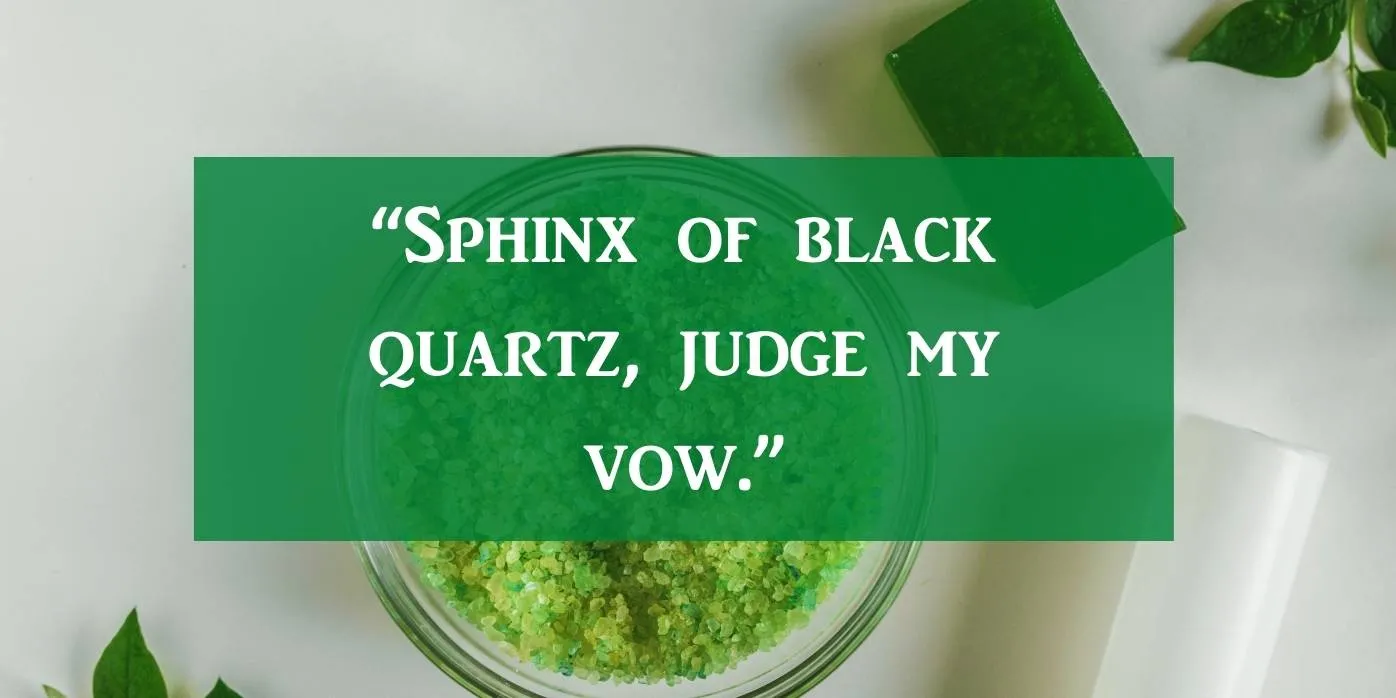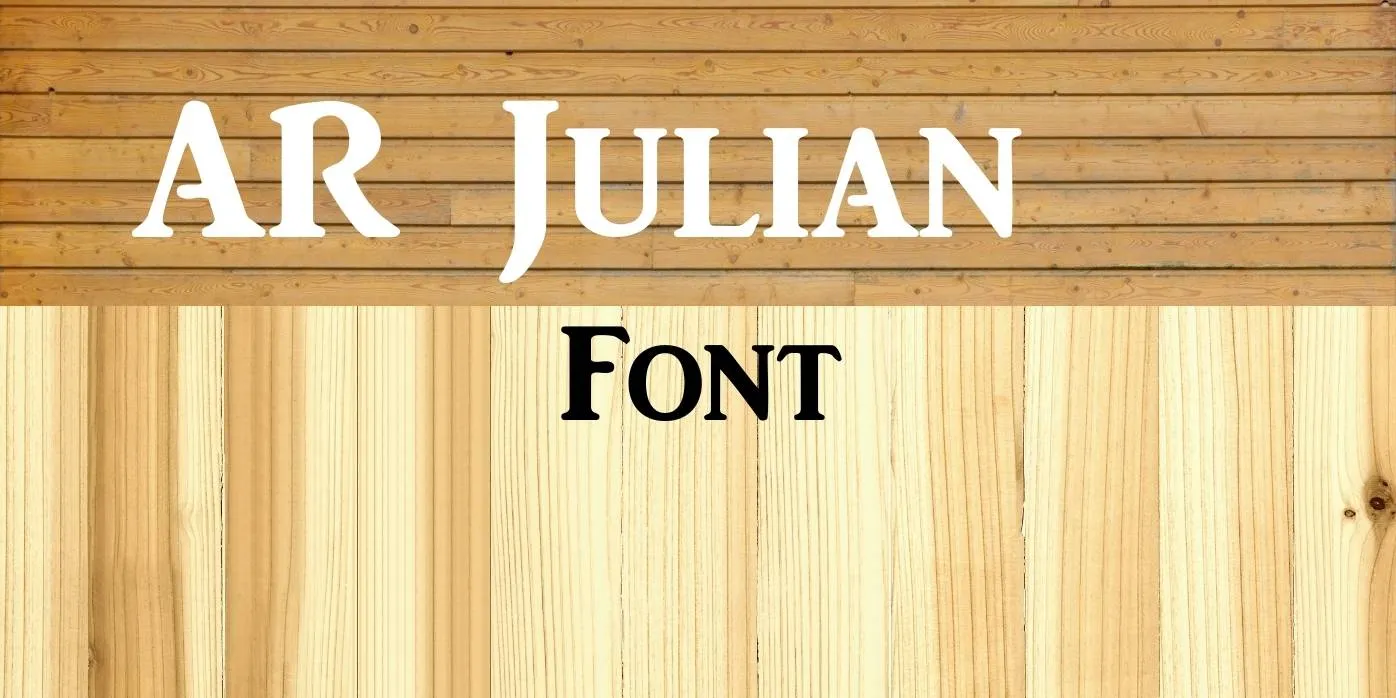
AR Julian Font
AR Julian Font was developed by James Lewis. This classy typeface belongs to the Serif font family. The shapes of the letters are traditional and have a human touch. The lowercase letters are slightly narrower than the capitals.
The font has a lot of contrast, which makes it perfect for large blocks of text. This stunning Font is a great choice for any project that requires a sophisticated and professional look. This versatile font can be used for both print and digital projects. This awesome Font is perfect for creating eye-catching logos.
Bembo Font is similar to this font family. Its copy and paste function is best. If you’re looking for a classy and stylish font to give your project a touch of sophistication, then this cute Font is a perfect choice for your designs. This font is also available in famous styles and it supports many languages.